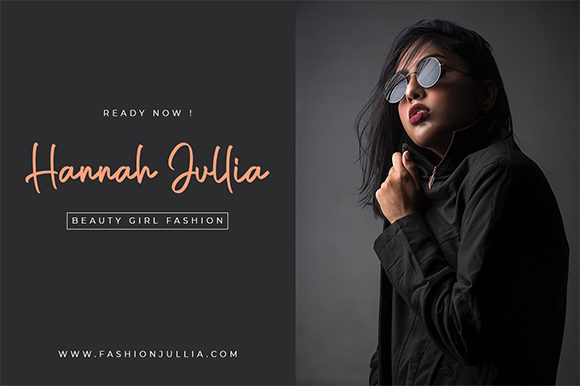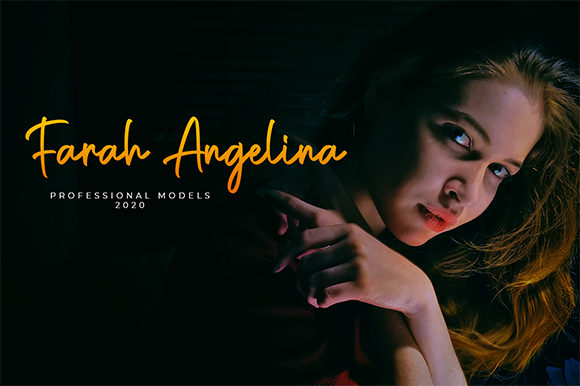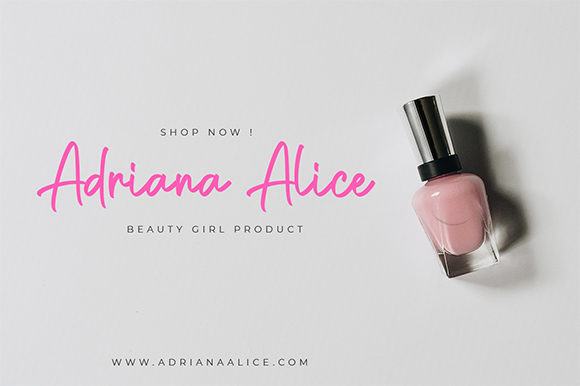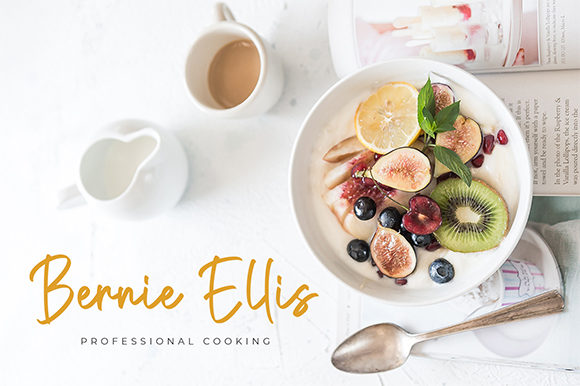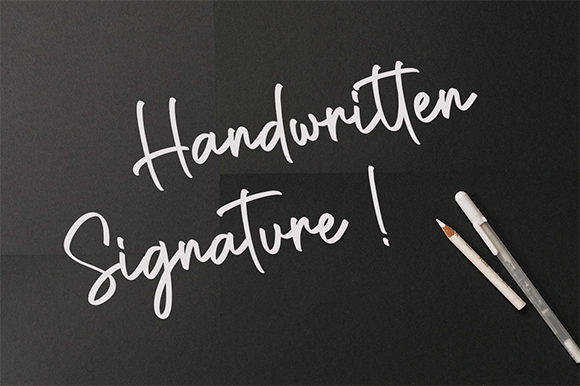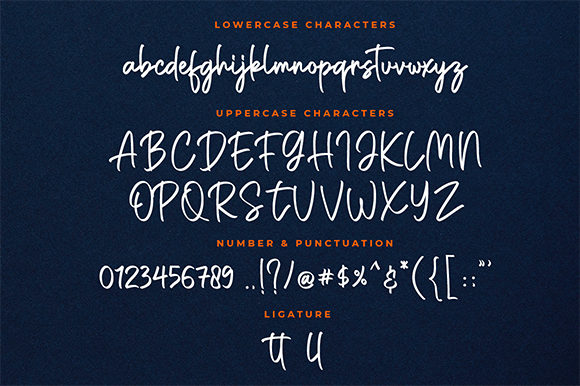
The Perfect Blend of Legibility and Authenticity
Have you ever found yourself lost in a sea of fonts, searching for that one perfect match to elevate your design project? You know, that moment when everything clicks into place and you can almost taste the creativity flowing through you? For designers, that moment is what makes all the hard work worth it.
Enter Caroline Amanda Font, a sweet script typeface that’s about to become your new best friend. With its focus on legibility and authenticity, this font is perfect for any design project that requires a personalized touch. Whether you’re working on a wedding invitation, a branding campaign, or a social media graphic, Caroline Amanda Font is sure to bring a touch of warmth and elegance to your design.
As a designer, you know how valuable it is to have a font that truly understands your vision. Caroline Amanda Font is more than just a typeface – it’s a partner in crime that will help you create designs that truly reflect your personality and style.
Caroline Amanda Font Key Features
- Font Family: Caroline Amanda is a script font, ideal for formal and elegant designs.
- Unique Characteristics: Features a flowing, handwritten style with subtle flair and swashes, perfect for adding a touch of sophistication to designs.
Caroline Amanda Font Review
As a designer, I was excited to try out the Caroline Amanda Font, and here’s my honest review.
- Unique and elegant design: The Caroline Amanda Font has a distinctive, hand-drawn feel that sets it apart from more generic fonts.
- Good legibility: Despite its ornate appearance, the font remains easy to read, even at smaller sizes.
- Versatile: Caroline Amanda Font is suitable for a range of applications, from body text to headings and titles.
- Limited font weight options: The font comes in only a few weights, which can limit its versatility in certain situations.
- No italic or bold versions: The font’s italic and bold versions are not as polished as the regular weight, which can be a drawback for some users.
- May not be suitable for digital displays: The font’s high x-height and irregularities can make it difficult to read on digital devices with low resolution.
The Caroline Amanda Font is a beautiful, elegant font that’s perfect for projects that require a touch of sophistication. While it has some limitations, its unique design and good legibility make it a great choice for designers who want to add some personality to their work.
Tip: Use Caroline Amanda Font for headings or titles to add a touch of elegance to your design.
Tip: Use Caroline Amanda Font for titles or headings in your design to add a touch of sophistication.
Tip: Use Caroline Amanda Font for headings or titles to add a touch of professionalism to your presentation or document.
Caroline Amanda Font is suitable for:
- Editorial and publishing designs
- Event and party invitations
Remember to use Caroline Amanda Font in a way that complements your design and message.
Alternatives to Caroline Amanda Font for Designers
Lato is a sans-serif font that is highly legible and versatile. It is a great alternative to Caroline Amanda Font for body text, as it is clean and modern. Lato is ideal for digital design, such as websites and mobile apps, and is available in a wide range of weights.
Comparison to Caroline Amanda Font: Lato has a more modern feel and is more suitable for digital design, whereas Caroline Amanda Font has a more classic and elegant feel.
Playfair Display is a luxurious serif font that is perfect for adding a touch of elegance to your design. It is a great alternative to Caroline Amanda Font for headings and titles, as it is highly ornate and decorative. Playfair Display is ideal for print design, such as business cards and brochures.